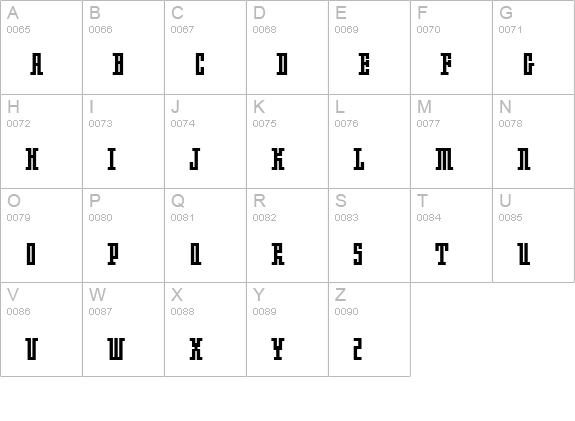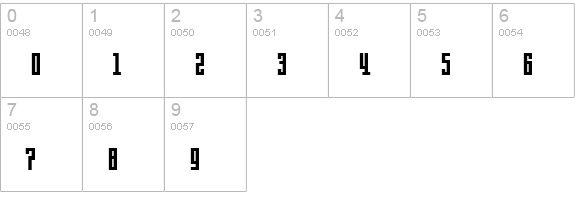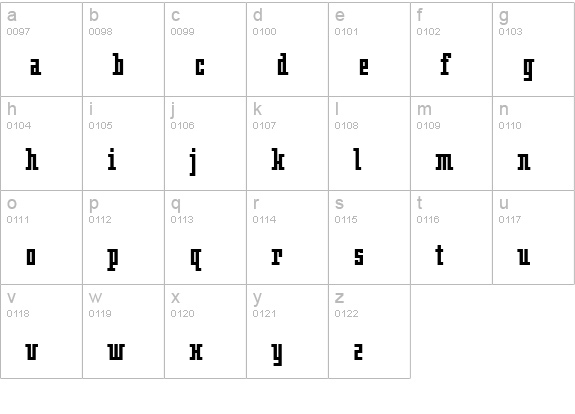
OblongBold Bold is a strong, high-contrast variant in the OblongBold typeface family \xE2\x80\x94 well suited to headlines, attention-grabbing titles, and strong calls-to-action.
OblongBold Bold is a striking and attention-grabbing font that exudes strength and modernity. With its bold and robust appearance, this font is perfect for making a bold statement in your designs. The thick, oblong-shaped letterforms command attention and convey a sense of confidence and power. This versatile font is ideal for a wide range of design projects, from logos and branding to headlines and posters. Whether you're looking to make a bold statement or add a touch of boldness to your designs, OblongBold Bold is sure to make an impact. Best of all, OblongBold Bold is available for free download at FontsMarket.com. So go ahead and add this powerful font to your collection today and make your designs stand out with its bold and striking presence.